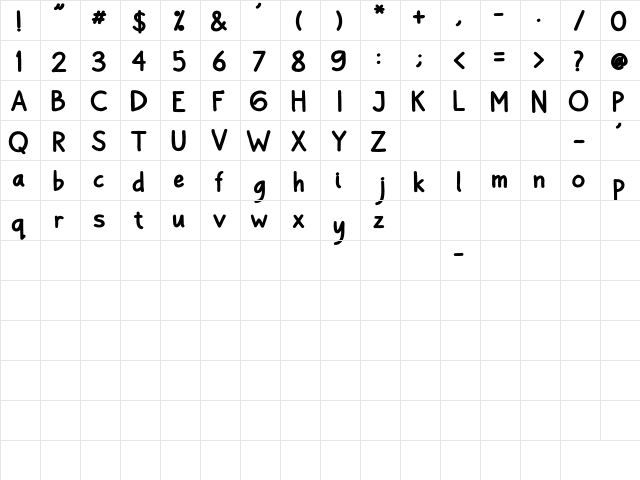
Bayu Prahara 2 Bold Bold
Design Context for Bayu Prahara 2 Bold Typeface
Bayu Prahara 2 Bold offers clean, dependable letterforms without strong stylistic allegiance, making it a practical choice for designers who need flexibility. The heavy weight commands attention and anchors typographic hierarchies.
Pro Tip: Use Bayu Prahara 2 Bold in both headline and body roles to test its range before committing to a single application.